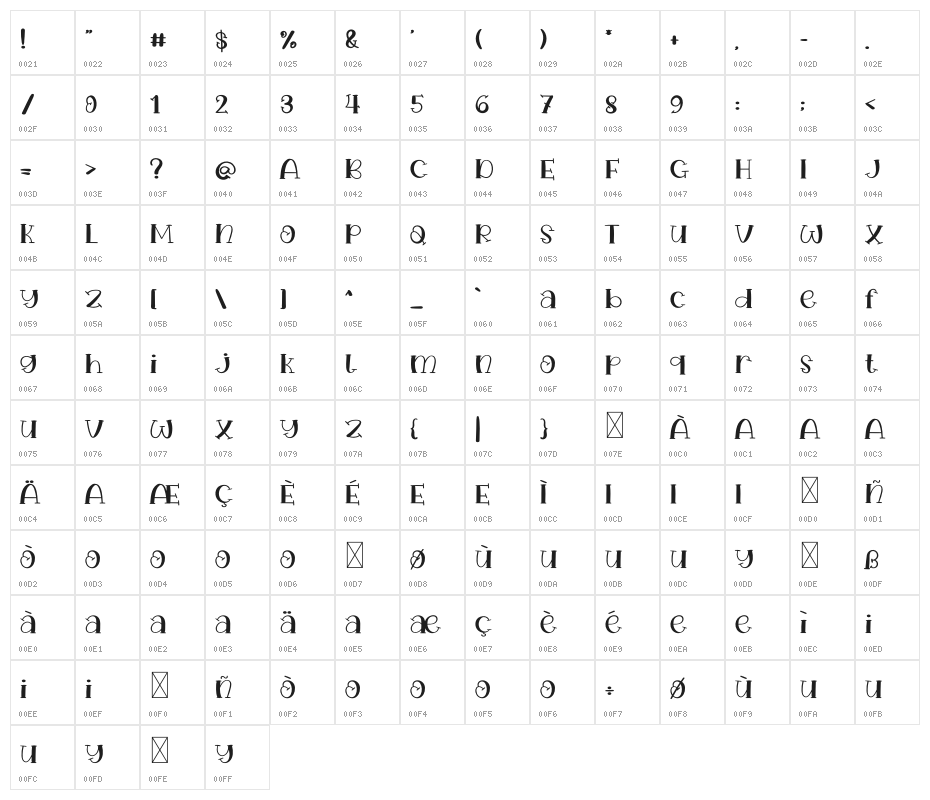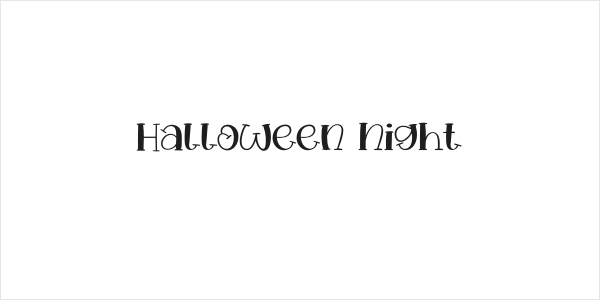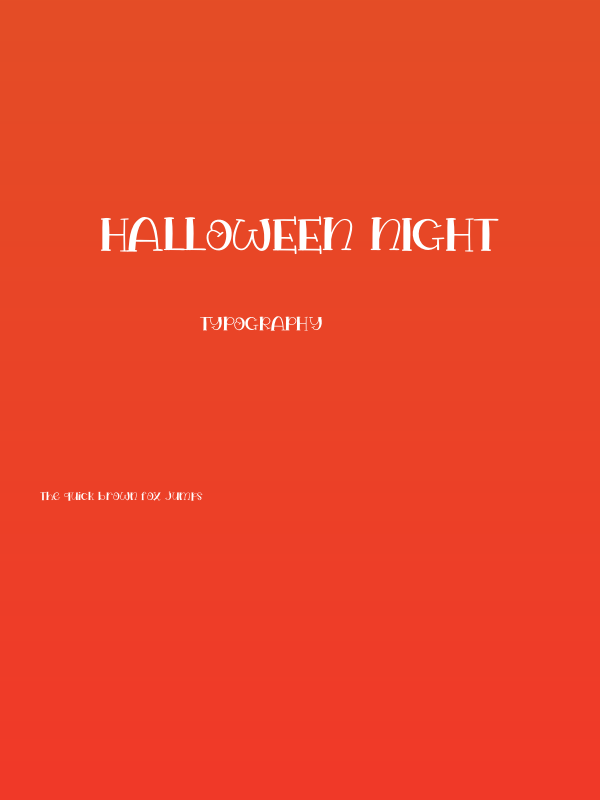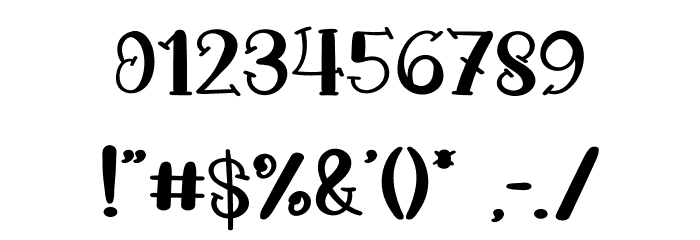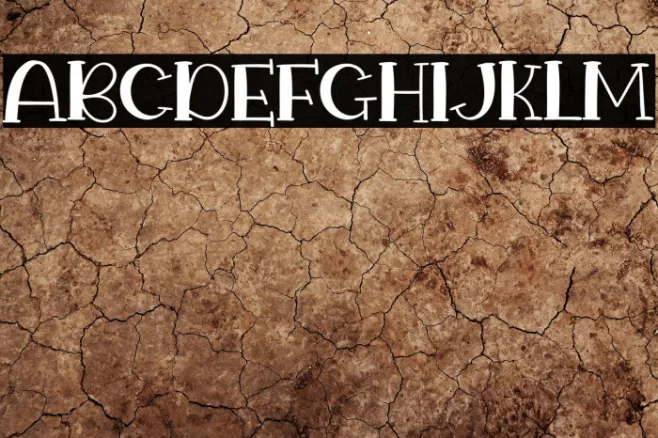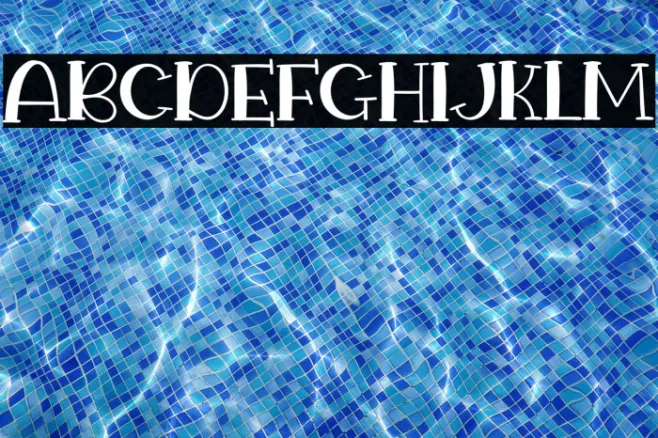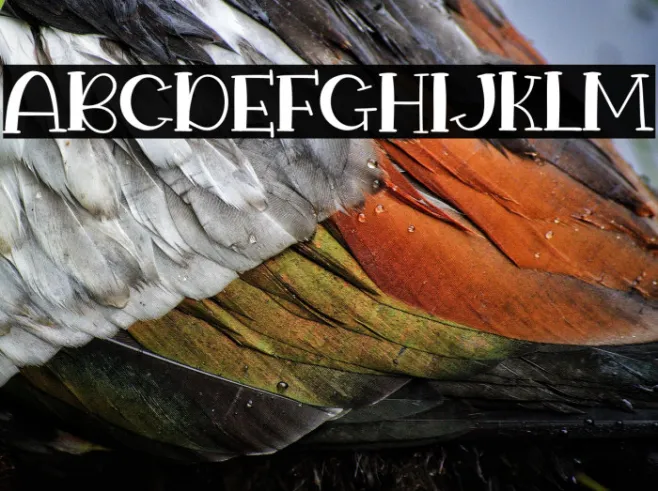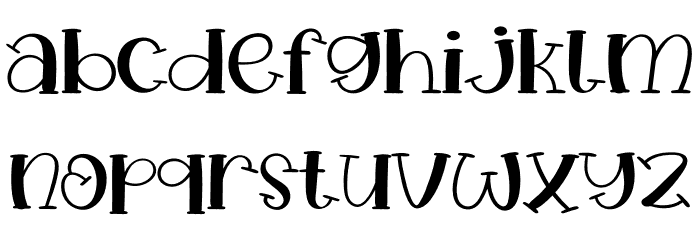
Halloween Night Font
Halloween Night Description
This font features a playful and whimsical design, perfect for festive occasions. The letters have a unique, slightly irregular shape that adds a touch of fun and creativity. The uppercase characters are bold and prominent, while the lowercase letters maintain a consistent style with a hint of flair. Numbers and special characters are designed to match the overall aesthetic, making this font versatile for various uses. The strokes are moderately thick, providing good readability while maintaining an artistic appearance. The font's style is reminiscent of a festive or themed event, making it ideal for decorative purposes.
| Proposed Projects | Ideal for Halloween-themed projects, party invitations, posters, and creative branding. |